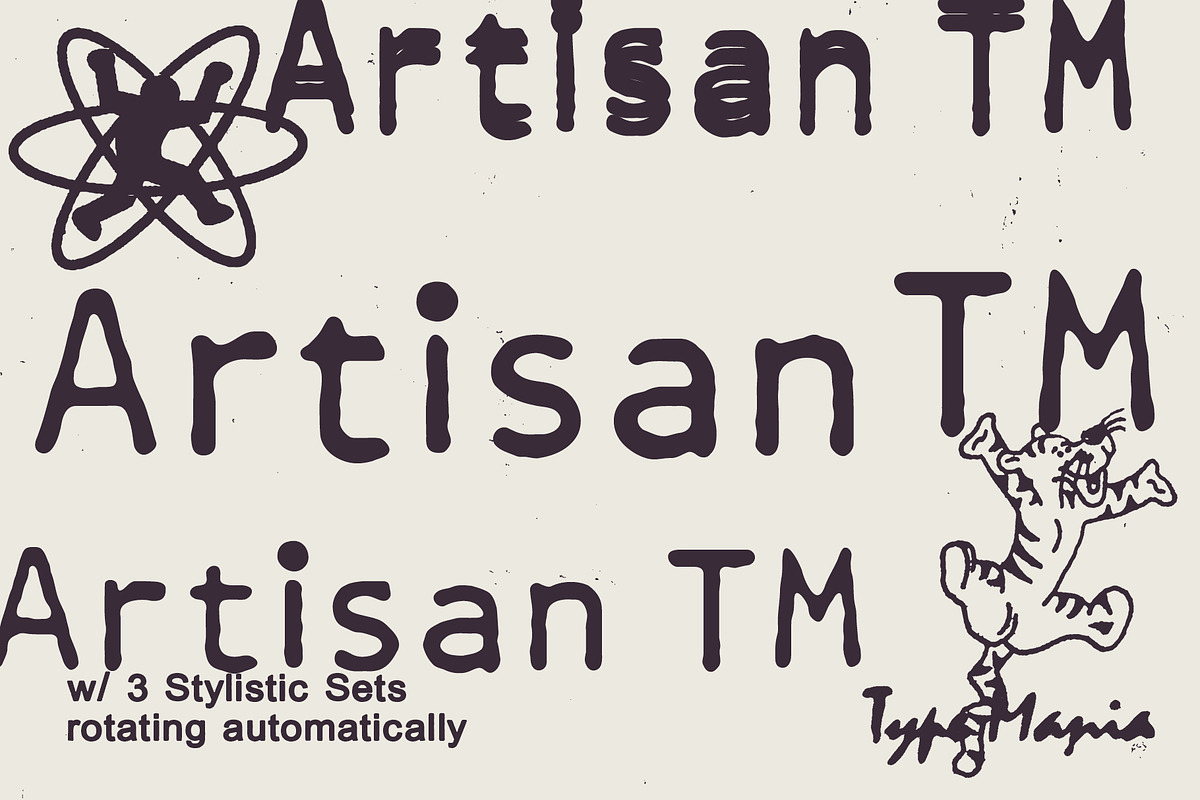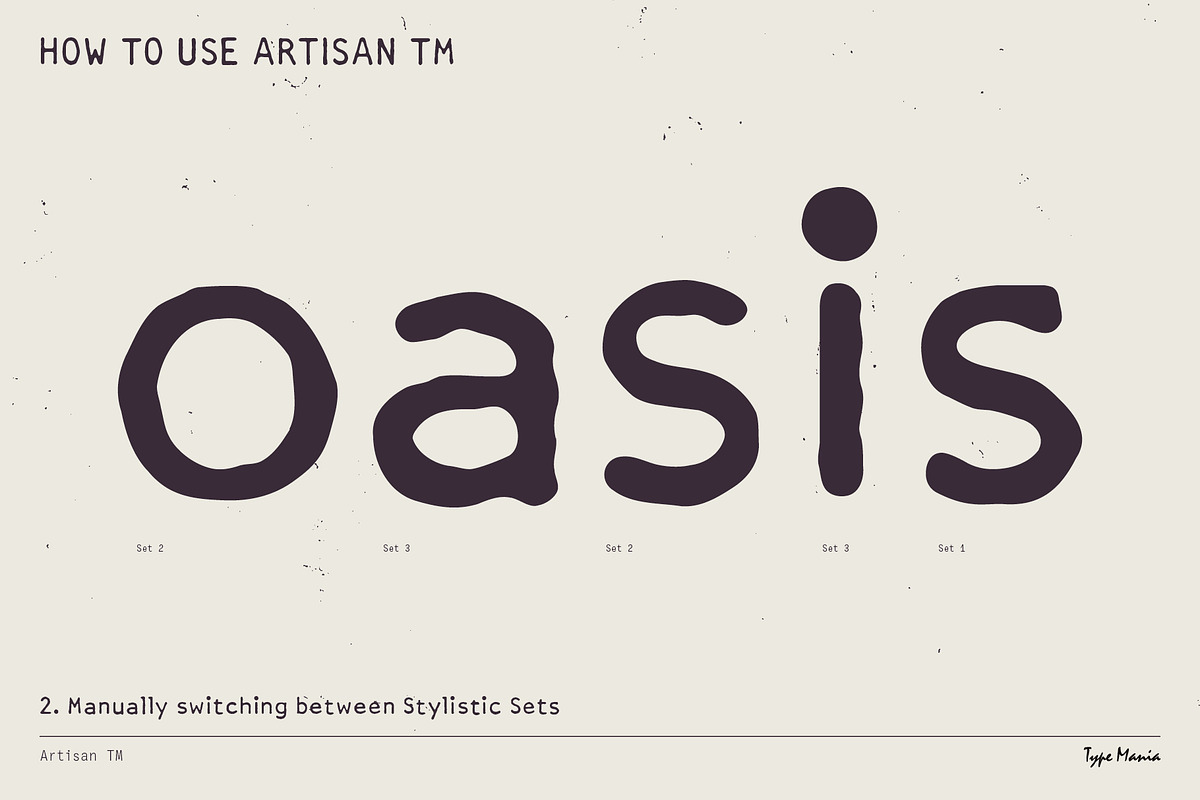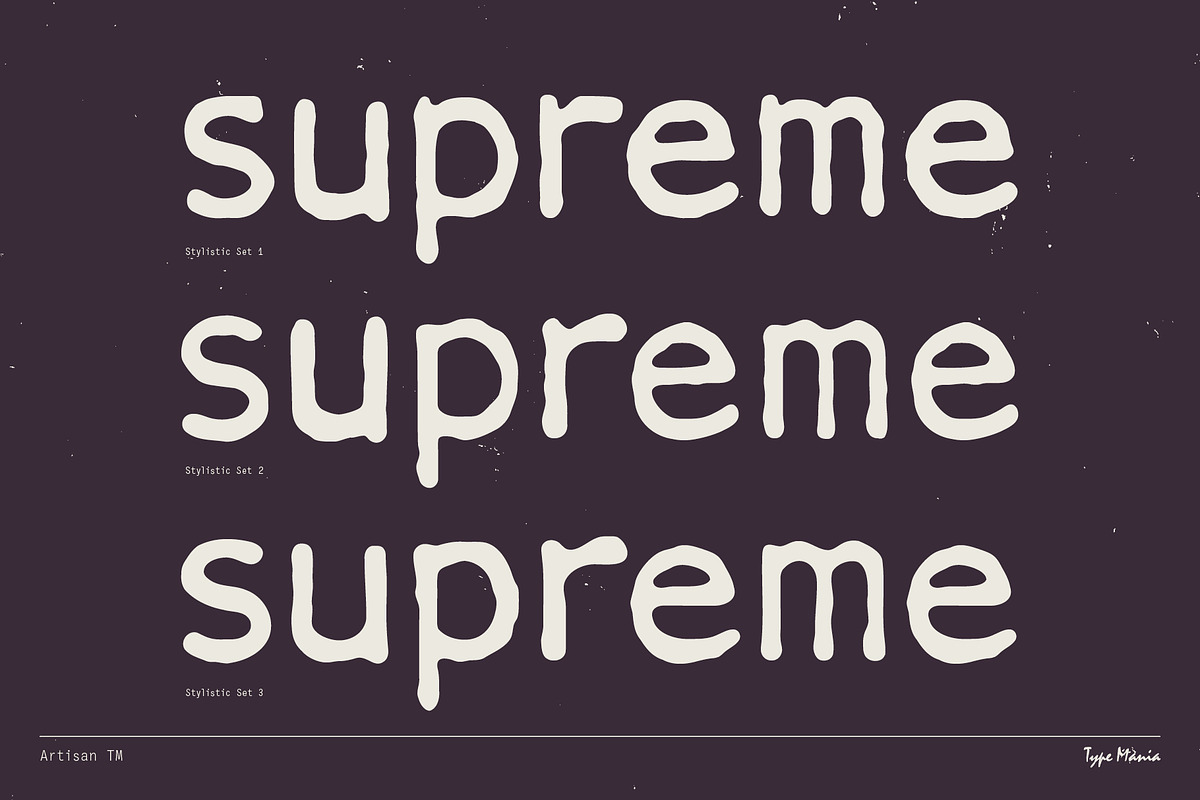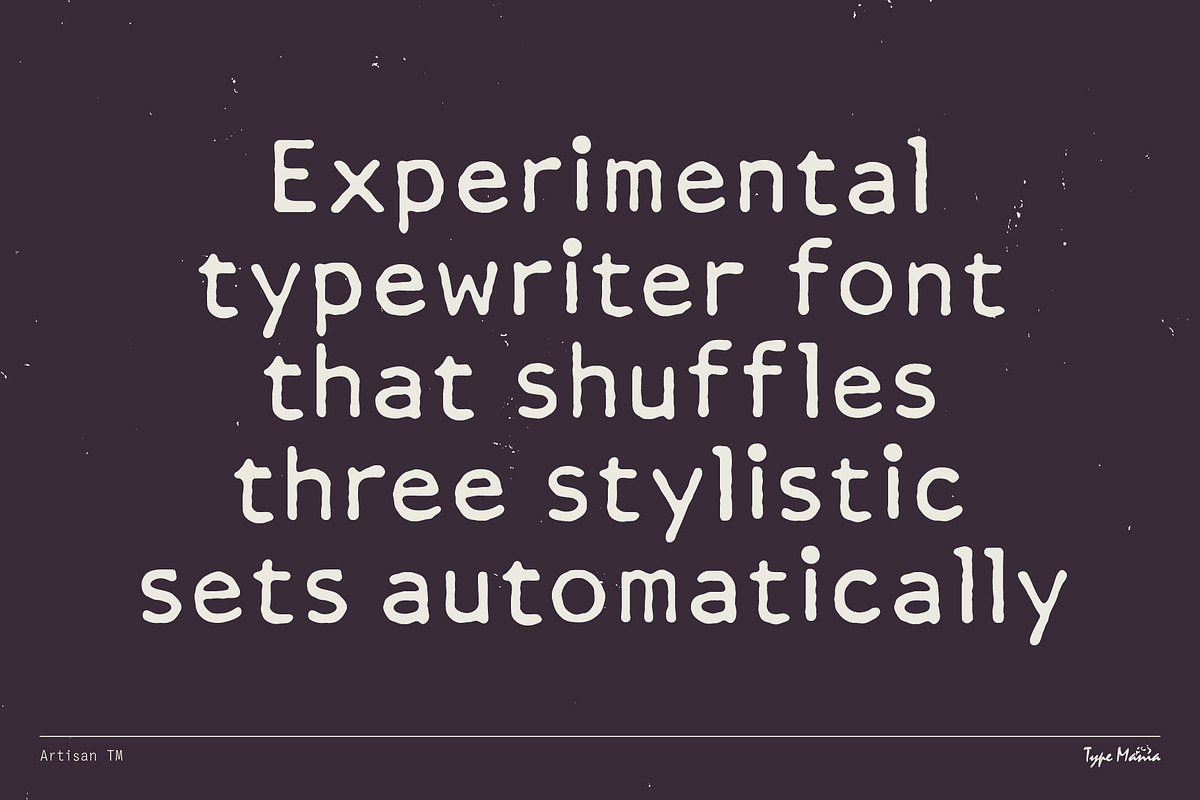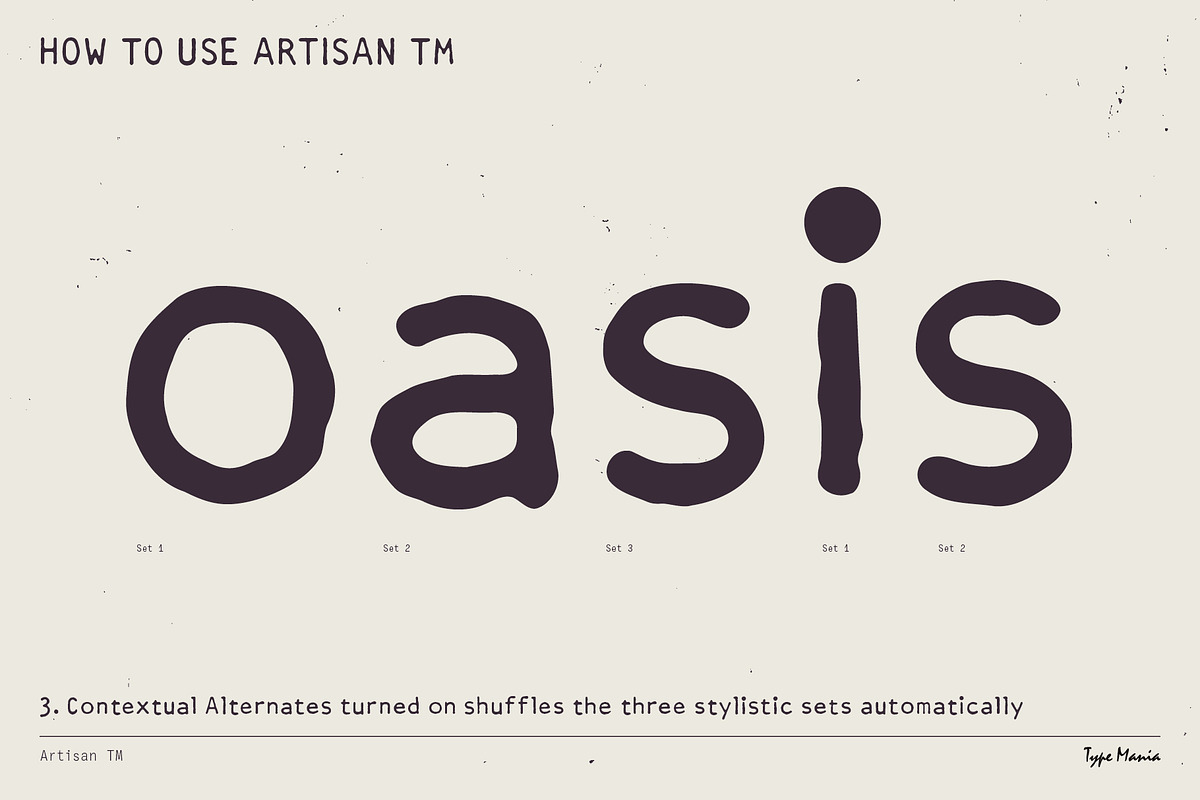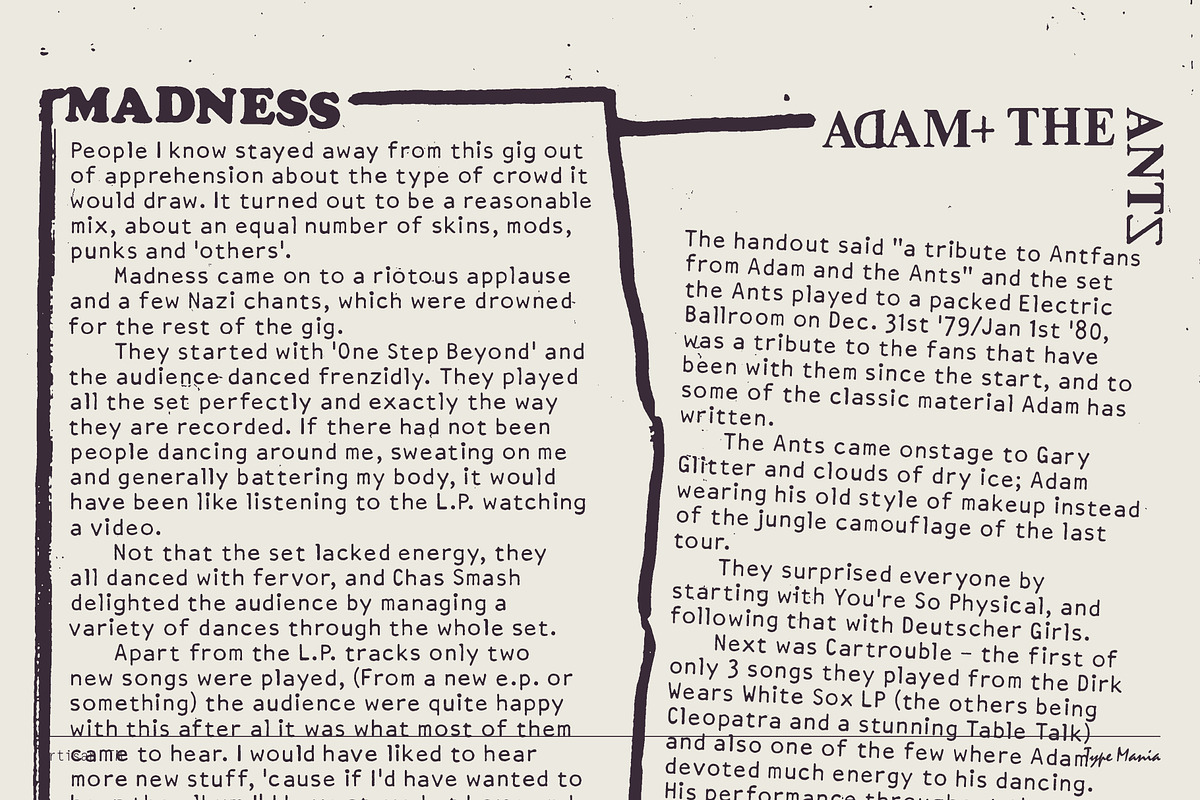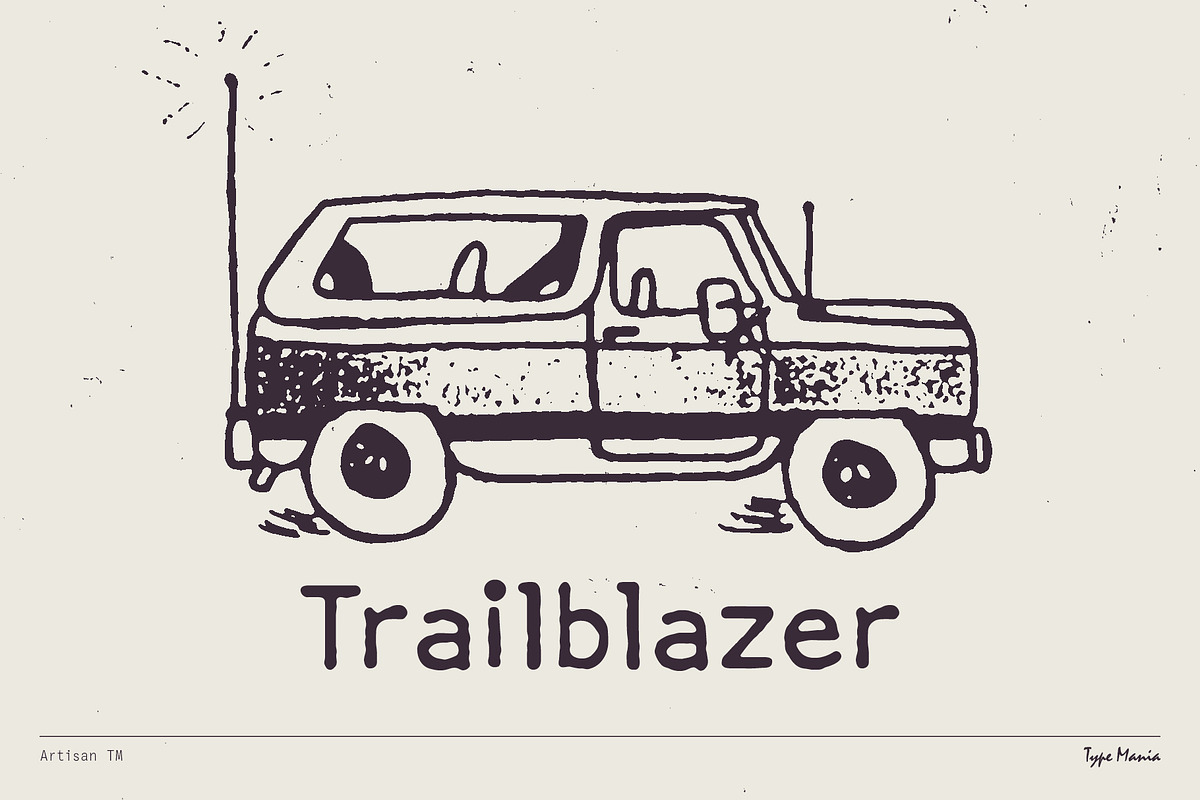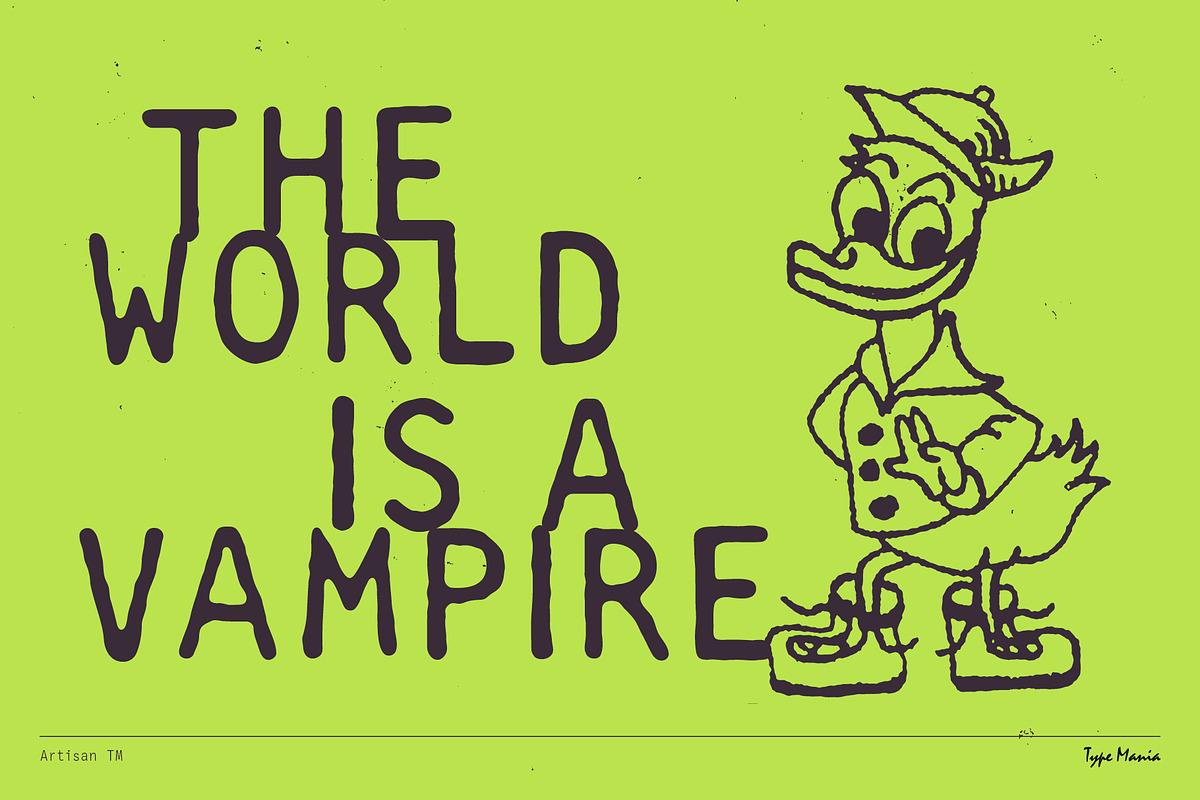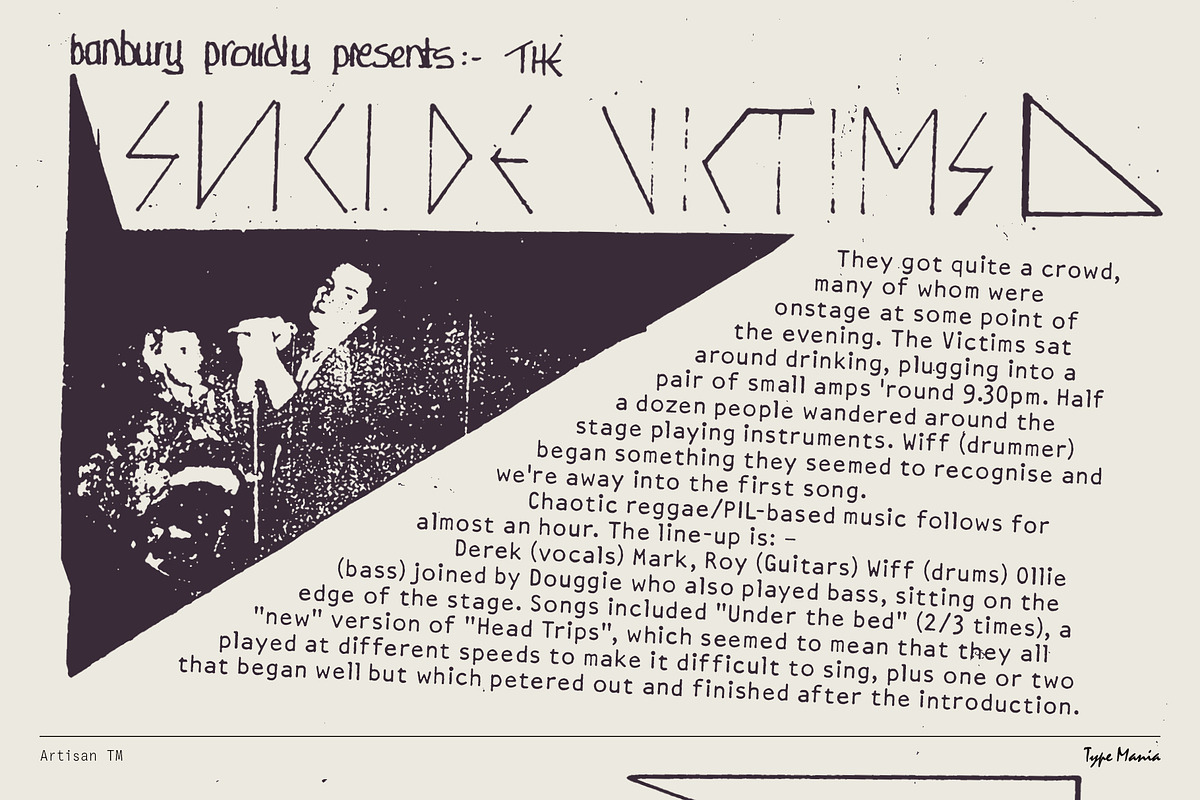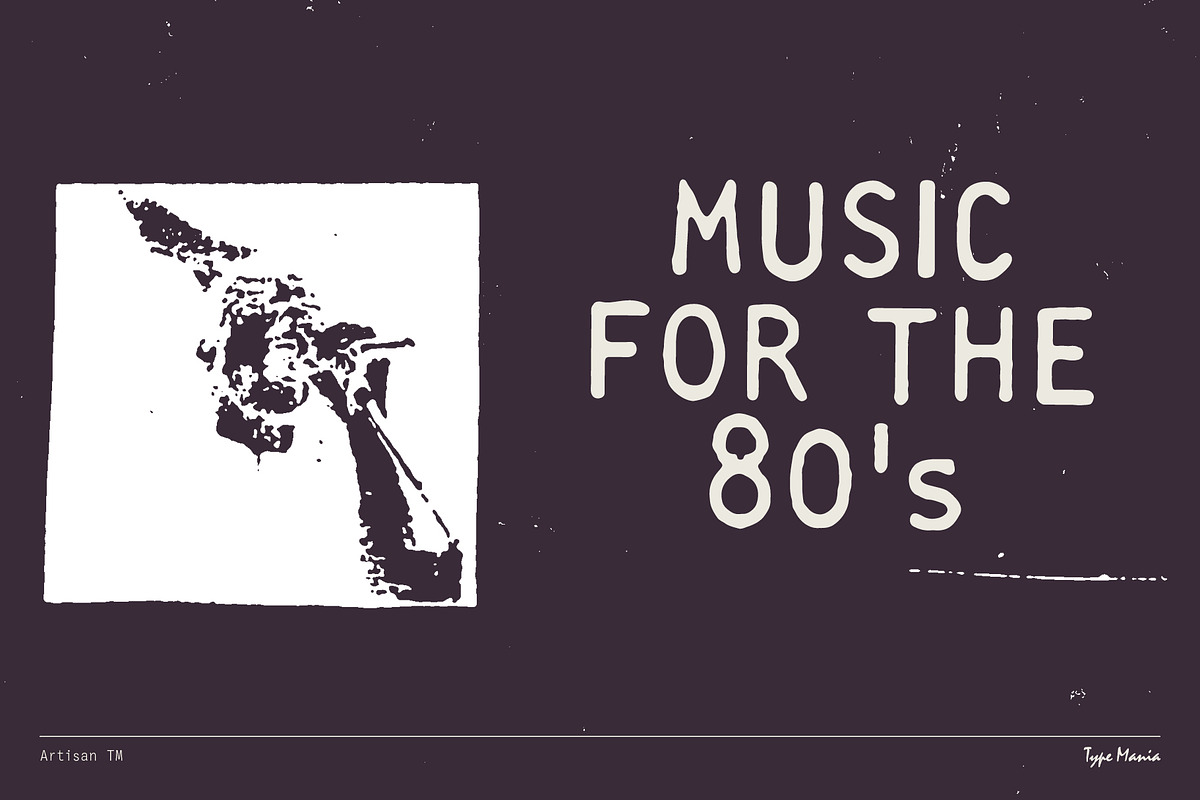
Artisan TM โ Distressed Typewriter
Inspired by mid-century typeball machines, Artisan TM carries the grit and texture of vintage keystrokes into the next level. It shuffles three stylistic sets automatically, giving you living text that feels as unpredictable as ink on paper.
OpenType features
- 3 stylistic sets
- The font is programmed to automatically shift between the stylistic sets
Languages
- Basic Latin
- Western European
- Euro
- Central European
- Pan African Latin